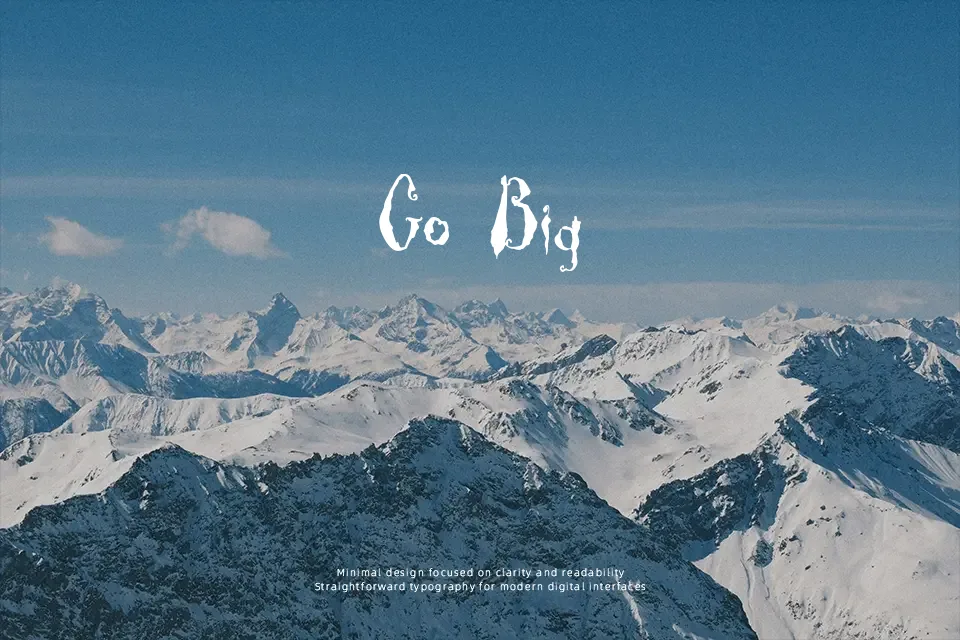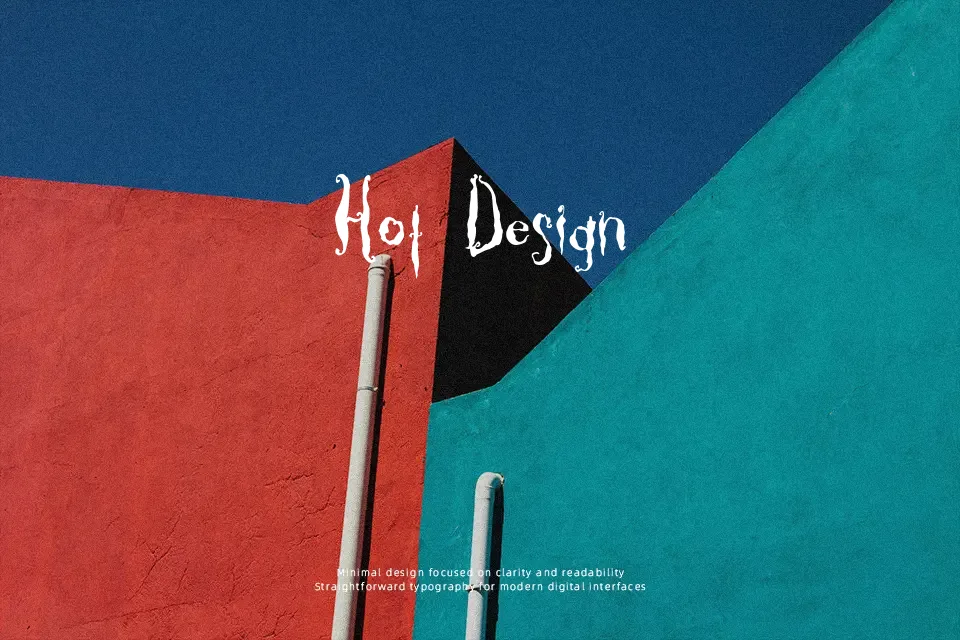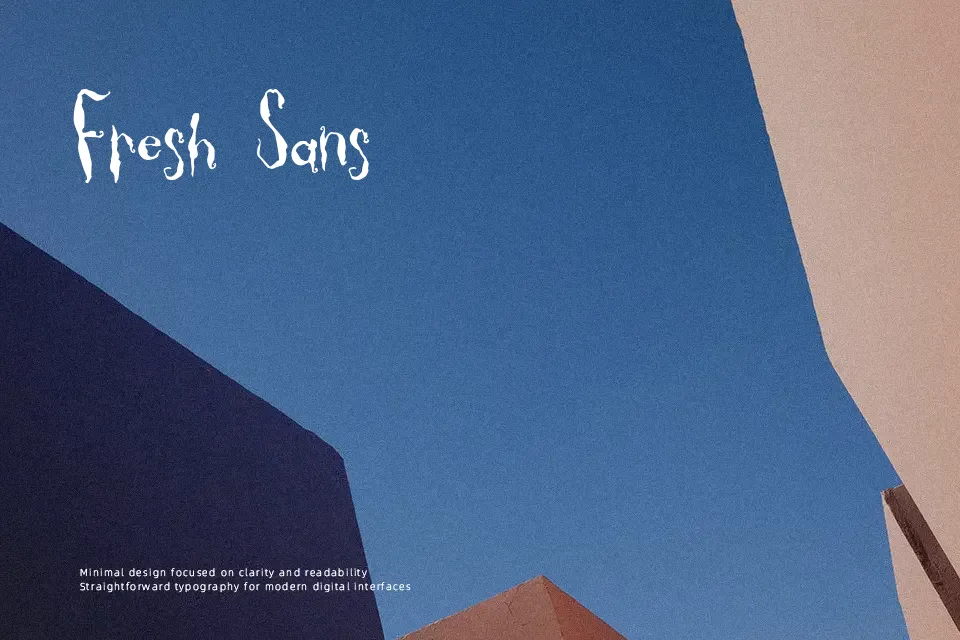
Thicket Font
Thicket Font showcases an elaborate botanical structure characterized by winding strokes, curling flourishes, and irregular silhouette boundaries. The letterforms maintain moderate stroke contrast with varied widths that lend a whimsical hand-drawn rhythm across the alphabet. Spacing between individual glyphs remains relatively open to accommodate the curling extensions without excessive collisions. In larger headline displays and merchandise branding, the typeface offers immediate thematic presence and distinct charm. However, the heavy decorative flourishes significantly impair readability at smaller point sizes, making the design ill-suited for dense body text or compact interface labels. As an aesthetic evaluation, the intricate curls create strong atmospheric impact in short display titles but quickly tire the eye during continuous reading.
Best For: fantasy book covers, fairytale invitations, themed packaging, festival posters
Not Ideal For: long body text, mobile user interfaces, legal contracts, dense spreadsheet data
Perfect for headline, invitation, and logo, with a artistic and decorative style.